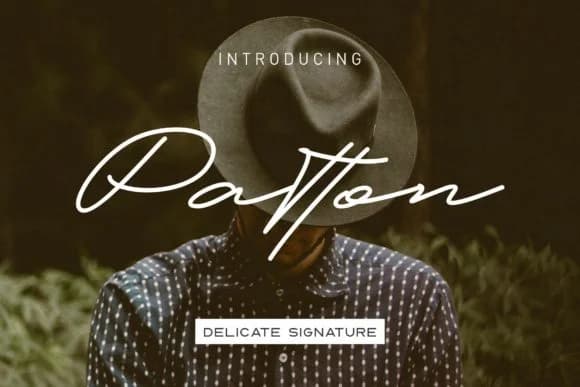
Patton by takoliko captures that fluid, hand-lettered quality that makes type feel genuinely personal without crossing into illegibility. The curves flow naturally across the letterforms, creating an expressive character that maintains clarity even at smaller sizes. It's the kind of script that reads as thoughtful and crafted rather than computerized or overly polished.
This typeface works particularly well when personality and warmth matter to the project. Couples and clients notice immediately when wedding invitation suites and thank you card sets gain that intimate, bespoke quality. Personalized product packaging and small-batch labels benefit enormously from the handmade aesthetic, which adds perceived value and authenticity. For DIY craft signage and custom menu boards, Patton becomes a focal point rather than an afterthought. Social media graphics and personal branding materials feel more intentional and distinctive rendered in these expressive letterforms. Event posters, announcement flyers, and custom display work all gain an authentic, handcrafted feel.
Patton Font is a script font that shines as a display or heading face. Pair it with a clean sans-serif or serif font for body text β the contrast creates a clear hierarchy while the two styles stay balanced and easy to read.